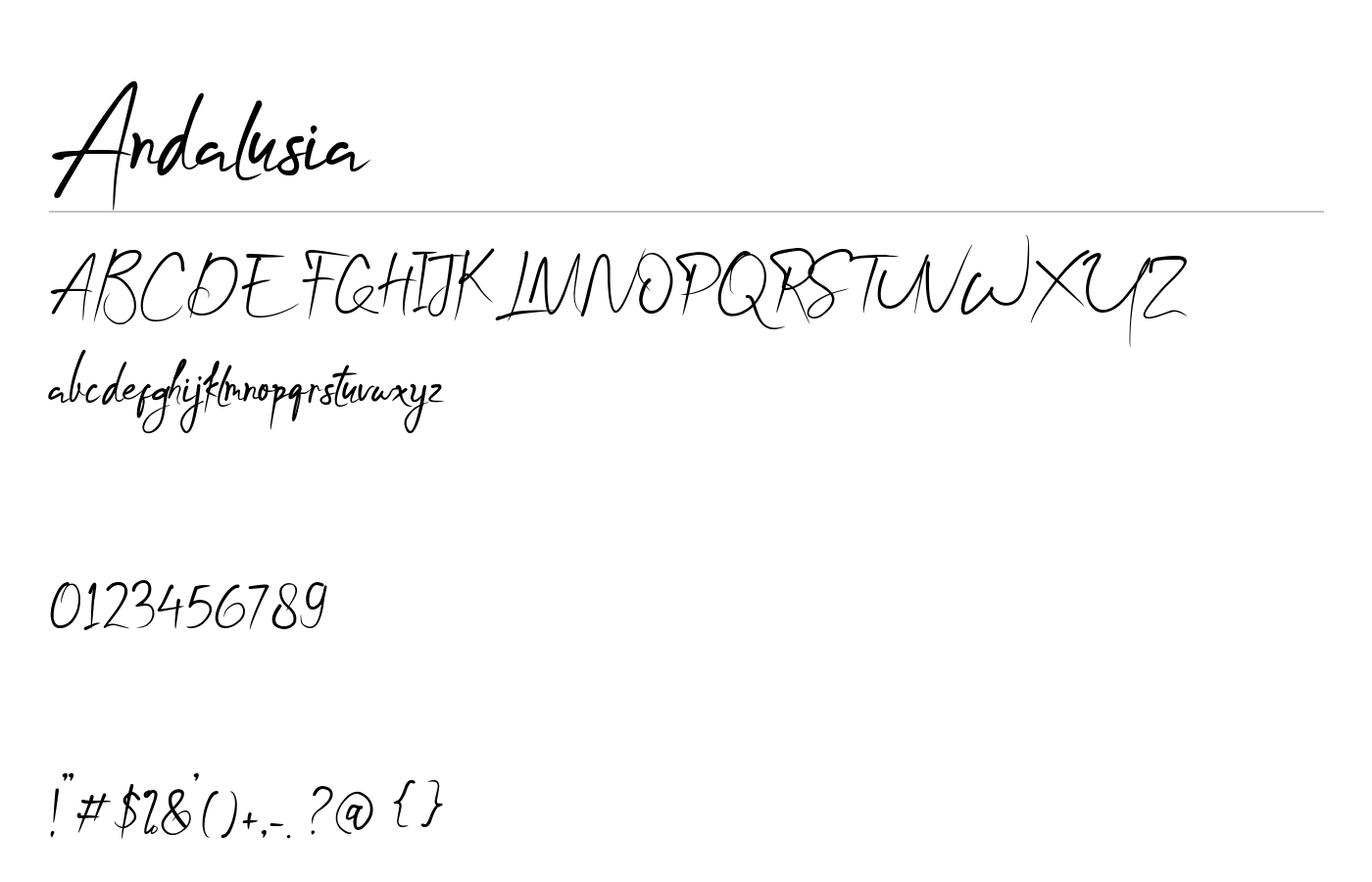
Andalusia is a delicate, handwritten script font with a natural, flowing style that feels personal and elegant. Its light stroke weight and narrow, airy letterforms give it a refined, casual charm, making it ideal for creative branding, invitations, and feminine design projects. This font works well where a touch of warmth and sincerity is desired, adding a modern yet approachable personality.
Andalusia Font
About Andalusia Font
| Font family | Andalusia Font |
| Designer | MJB Lestters 2018 |